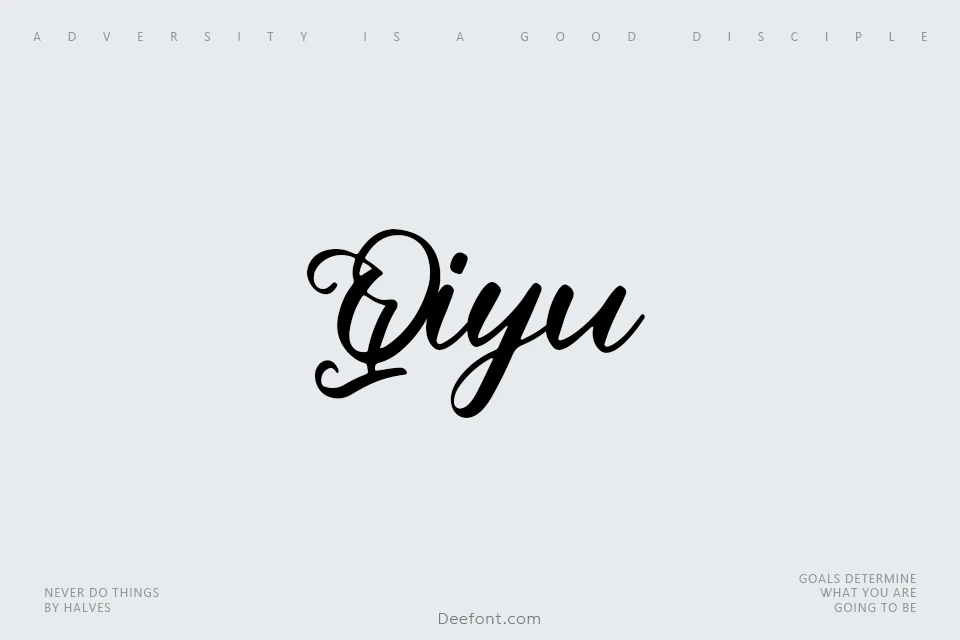
Qiyu Font
The Qiyu Font is a modern handwritten script font designed to bring elegance and a handcrafted feel to your creative projects. With its fancy and sophisticated strokes, Qiyu Font is perfect for branding, invitations, packaging, and any design that aims to impress with a personal touch.